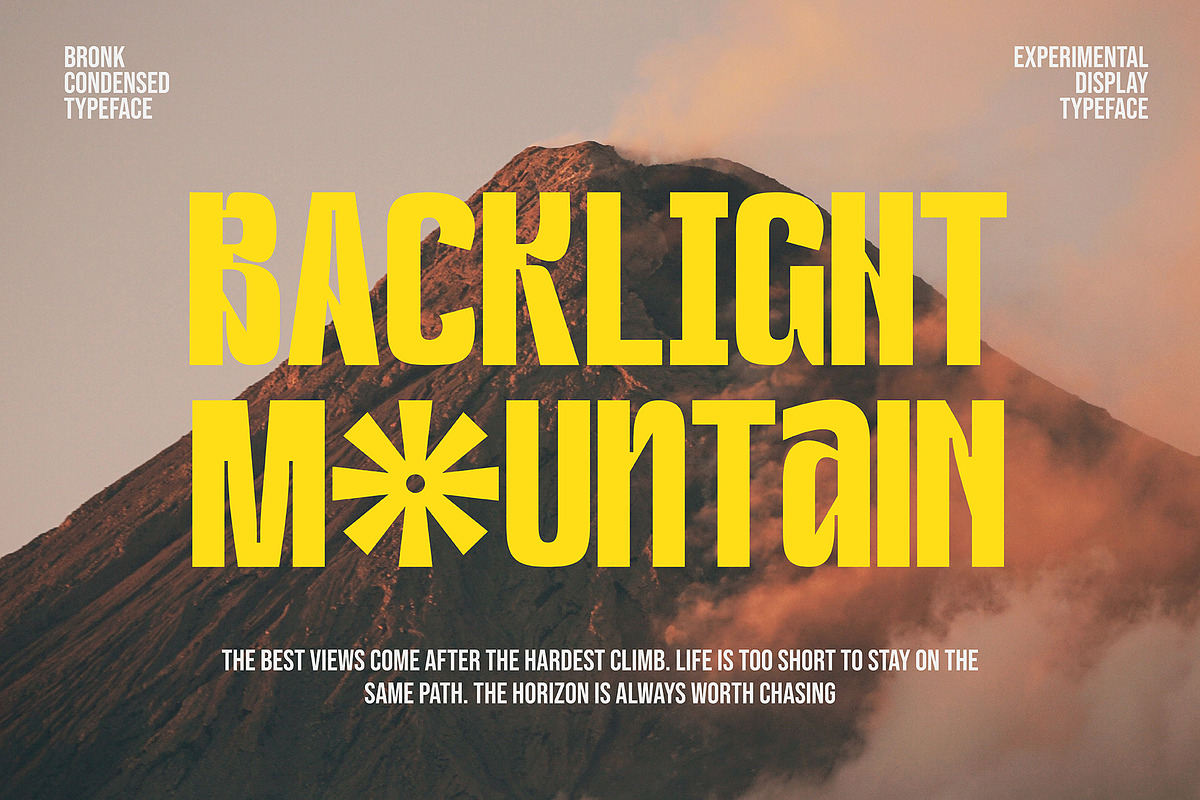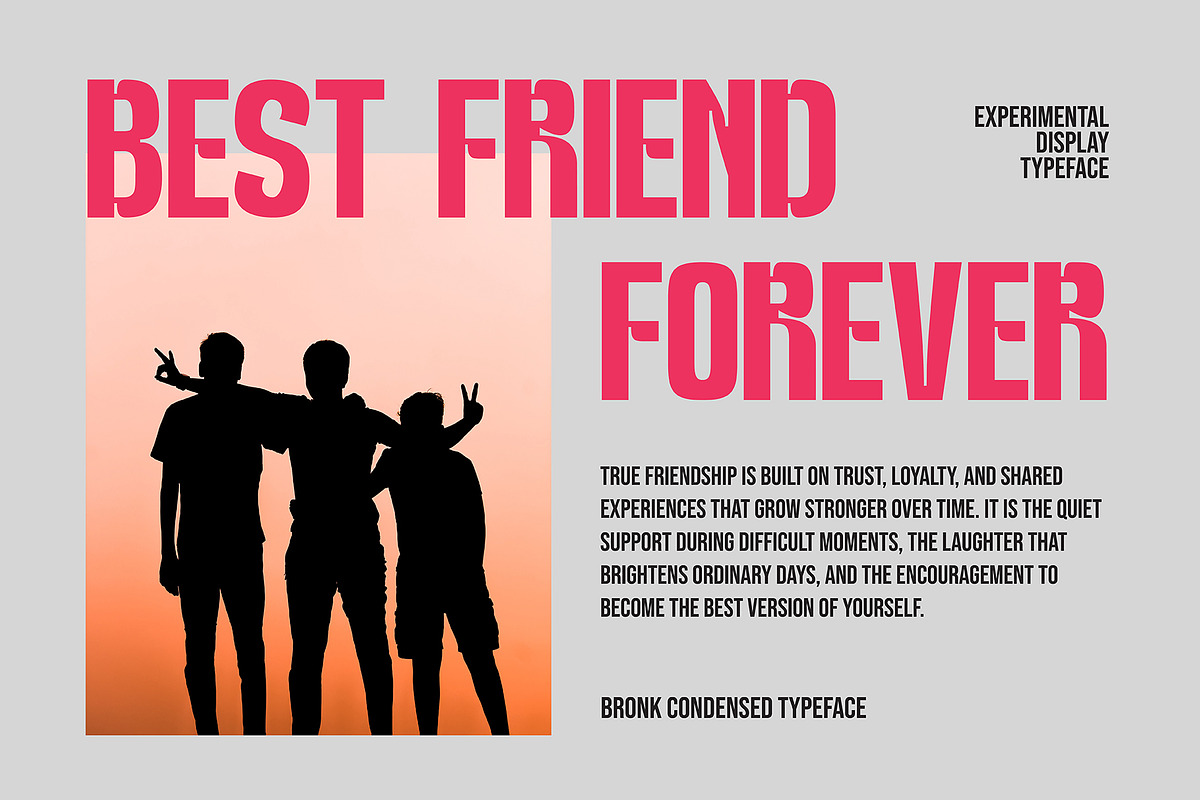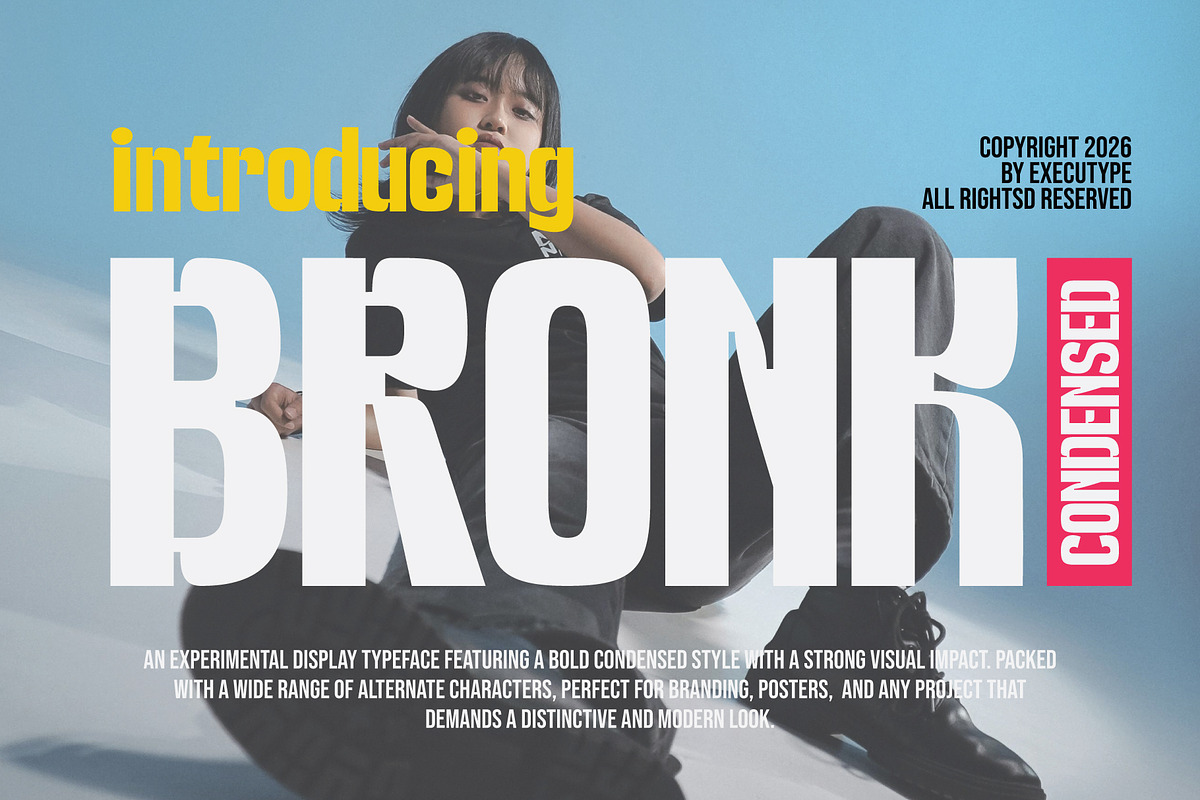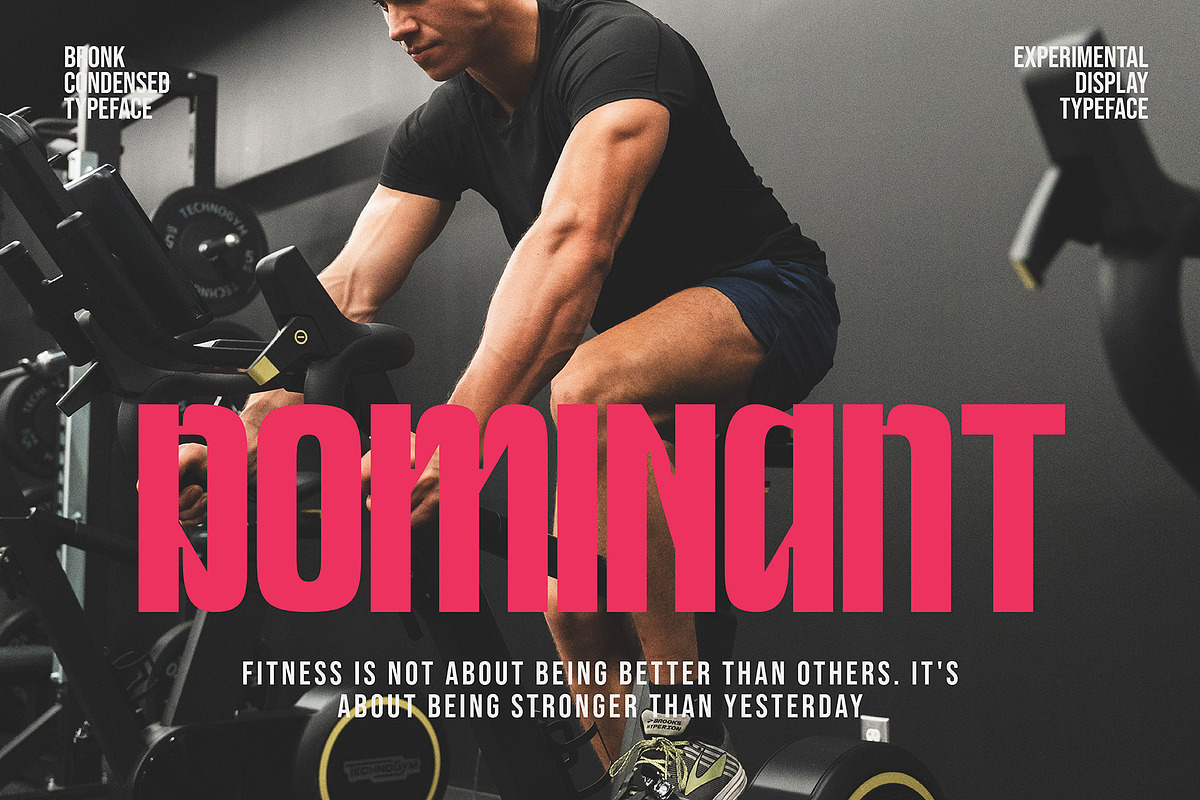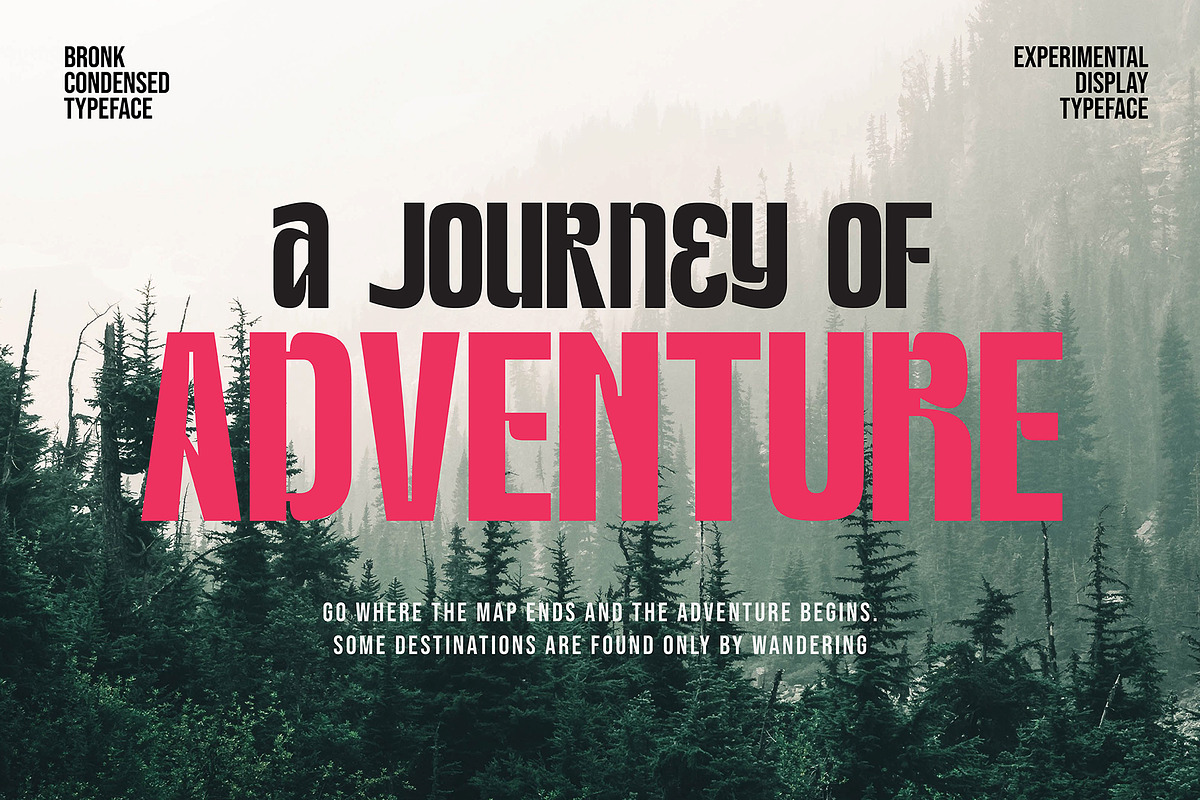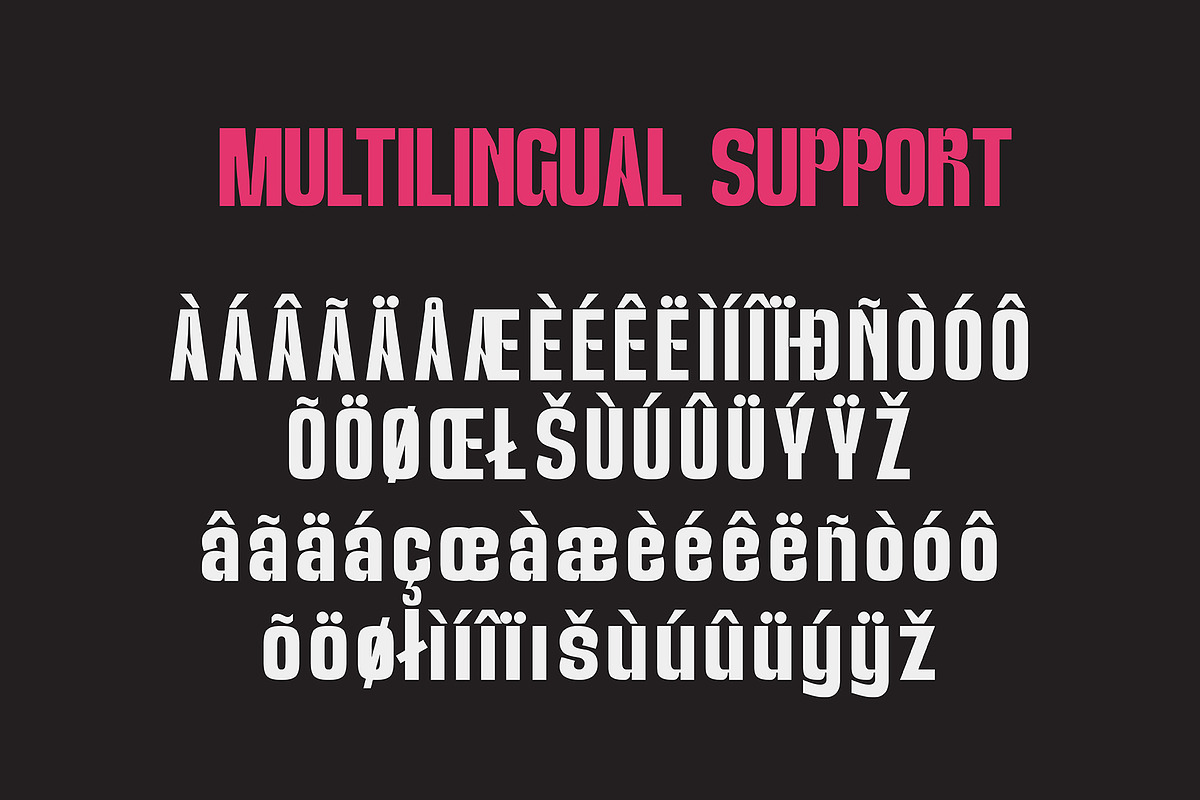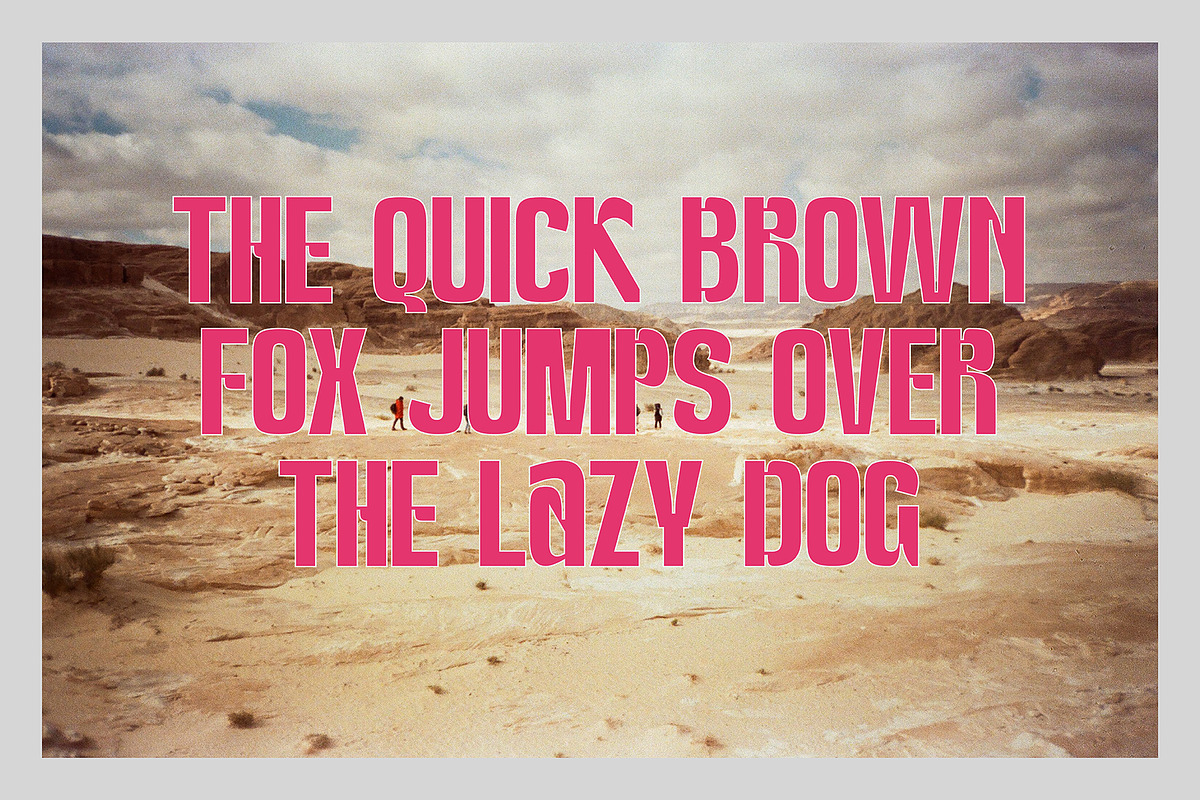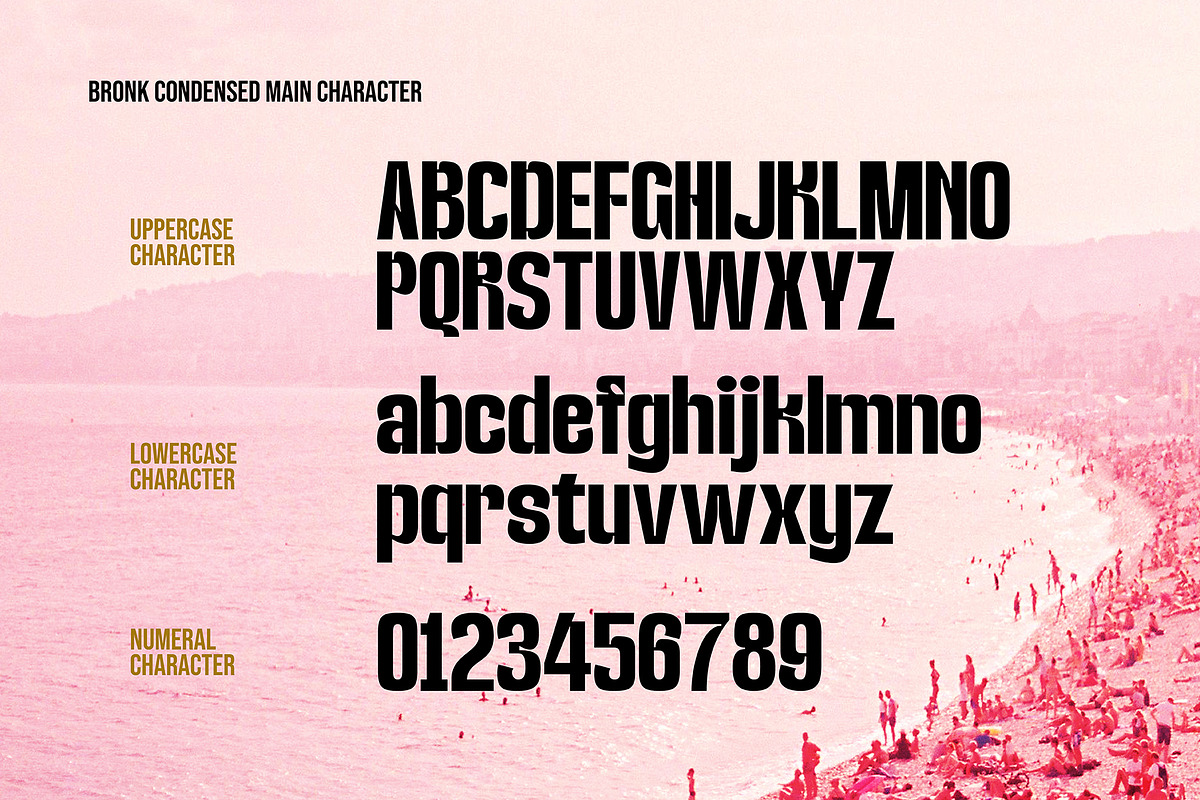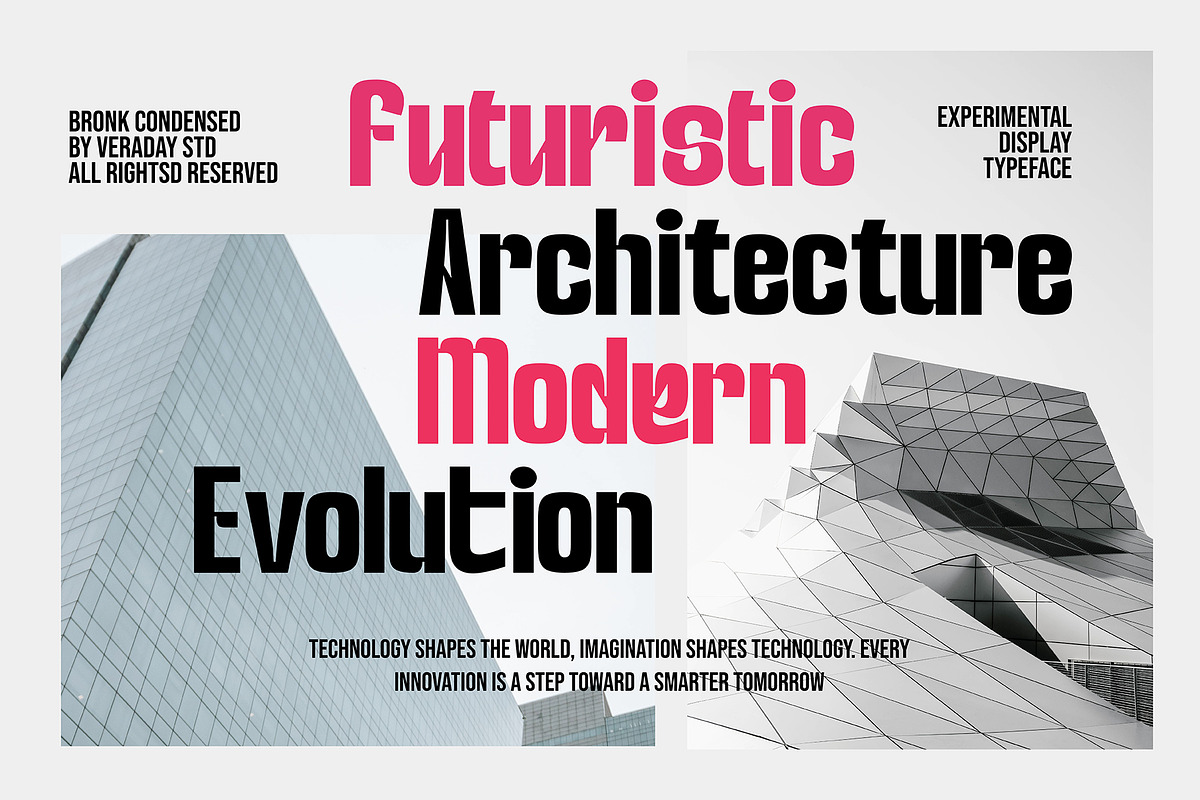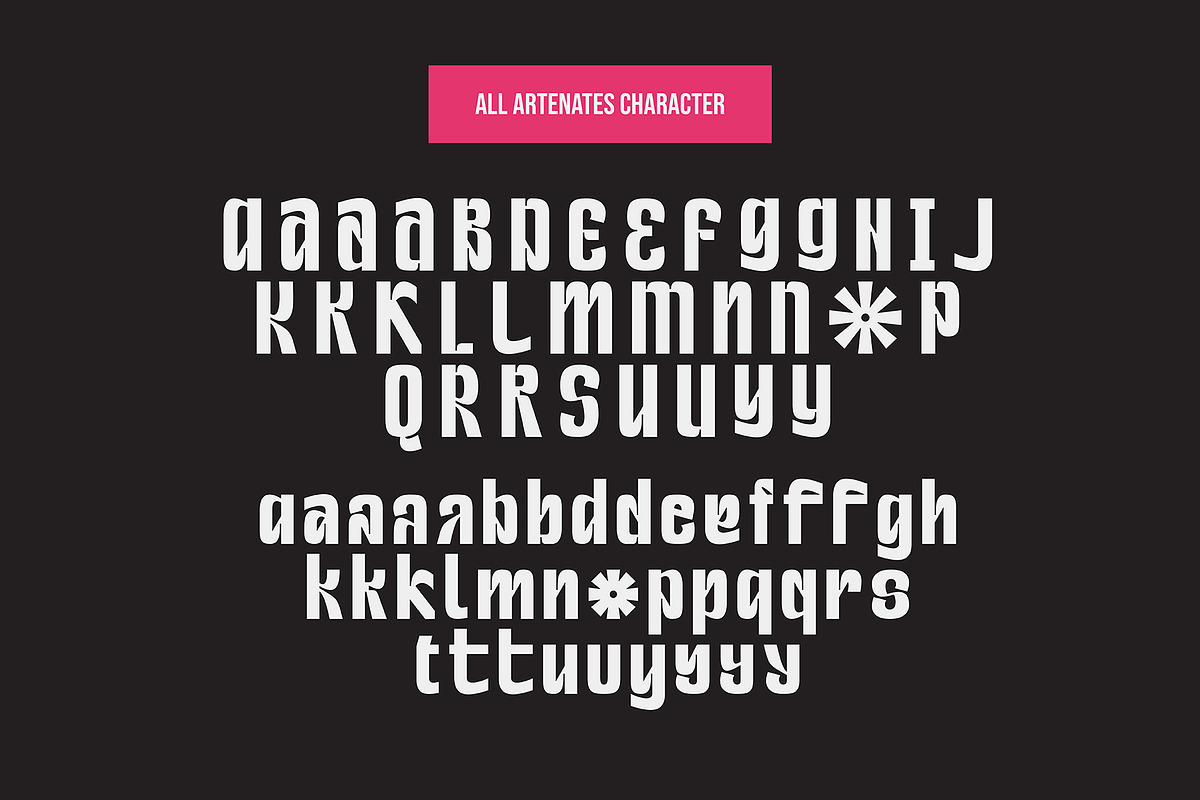
Bronk Condensed
Introducing Bronk Condensed
Bronk is an experimental condensed display typeface featuring bold, heavy weights with a brutal and modern look. Designed for brands that demand attention.
With a wide range of alternate characters, Bronk is perfect for logos, headlines, posters, apparel, and any project that requires a distinctive and powerful look.
Full Uppercase & Lowercase
Numbers, Punctuation & Symbols
Extensive Multilingual Support
Alternate Characters & Ligatures
Bronk speaks loud. Use it when you want to be DOMINANT.